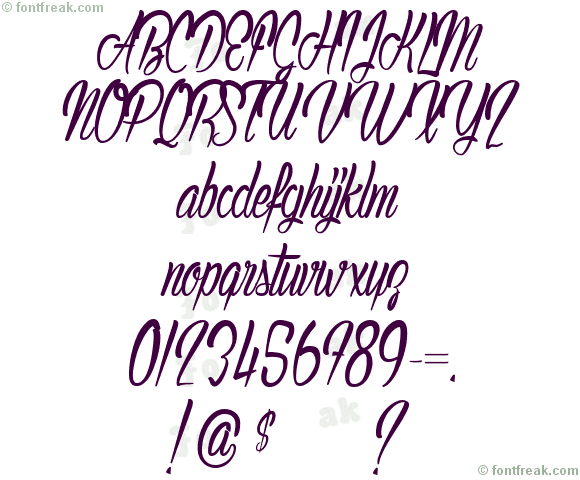
Authentic Hilton
About Authentic Hilton
The Authentic Hilton font, designed by Maelle.K, is a stunning script typeface that captures the essence of elegance and sophistication. This freeware font is perfect for personal use, making it an excellent choice for anyone looking to enhance their graphic projects without breaking the bank. With its flowing cursive style, the Authentic Hilton font features a combination of fluid strokes and graceful curves that create a sense of movement and charm. The medium stroke weight gives it a balanced look, while the contrast between thick and thin lines adds depth and visual interest. The spacing is meticulously crafted, ensuring readability while maintaining the font's artistic flair.
This versatile font shines in a variety of applications. It's ideal for wedding invitations, where its romantic and refined appearance can set the perfect tone for special occasions. Additionally, the Authentic Hilton font works beautifully for restaurant menus, lending a touch of class that can elevate the dining experience. It is also suitable for branding projects, helping small businesses create unique logos that stand out. Content creators can use this font for social media graphics, allowing them to convey a sense of authenticity and style in their posts.
Targeting graphic designers, small business owners, and content creators, the Authentic Hilton font free download offers an accessible way to infuse creativity into various projects. Its distinctive style and practical usability make it a valuable addition to any designer's toolkit. With its elegant script that balances sophistication and approachability, the Authentic Hilton font stands out as a unique choice for those looking to make a lasting impression in their visual communications.